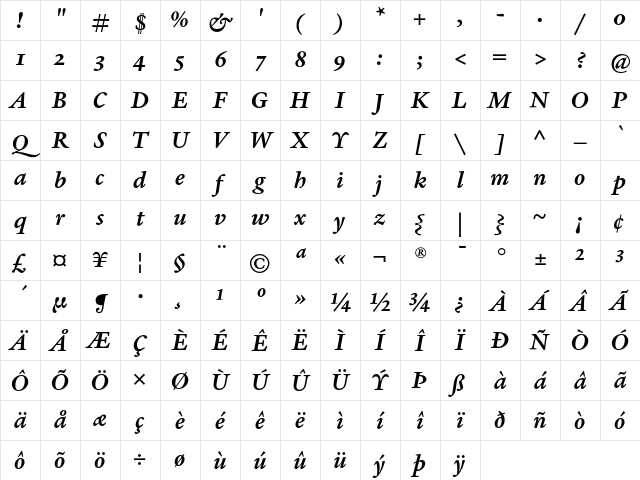
Verdigris MVB TF Bold Italic
Design Context for Verdigris MVB TF
Verdigris MVB TF is a composed and adaptable typeface that performs quietly and consistently across a wide range of design contexts. The slanted form adds forward momentum and visual energy. Its bold stroke weight gives it real presence on the page.
Pro Tip: Use Verdigris MVB TF for emphasis, pull quotes, and subheadings where its slanted energy can add rhythm to the layout.